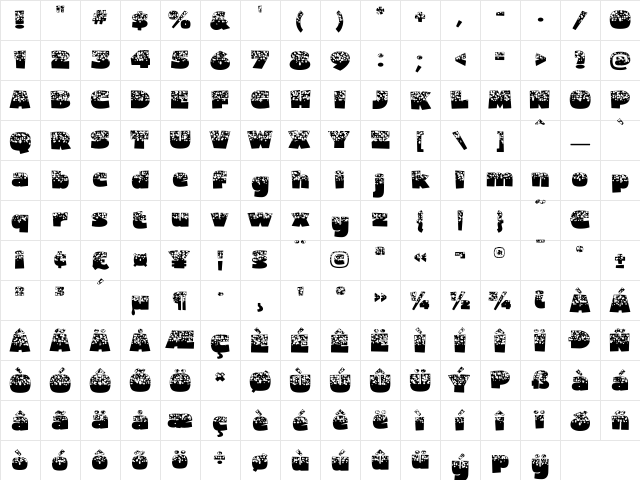
FatBoy 'BubbleUp' Regular
Design Context for FatBoy 'BubbleUp'
FatBoy 'BubbleUp' has an approachable, lighthearted character - its loose, expressive forms are well-suited to children's content, casual branding, and fun-first design.
Font Pairing: Pairs well with a rounded or humanist sans for body copy, maintaining the friendly tone without relying on FatBoy 'BubbleUp' to carry extended reading.
Pro Tip: Use FatBoy 'BubbleUp' at larger display sizes where its expressive character can land. Pair with a clean, simple sans for body copy to maintain readability.